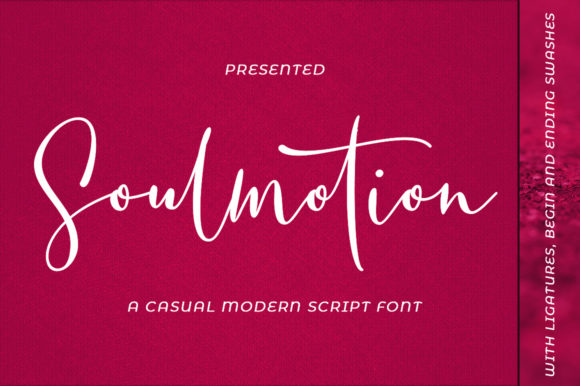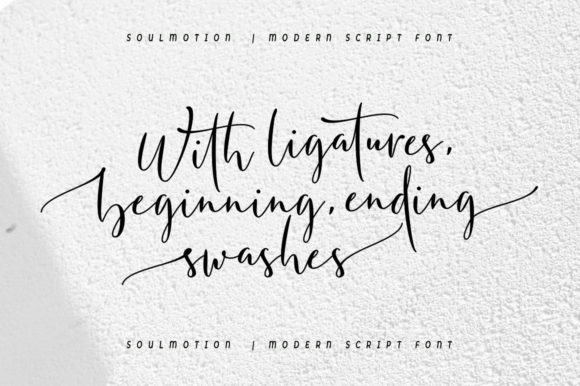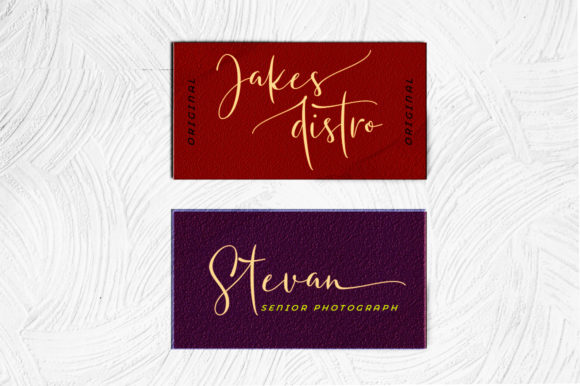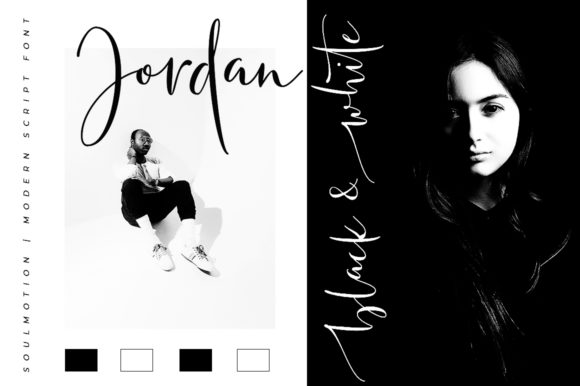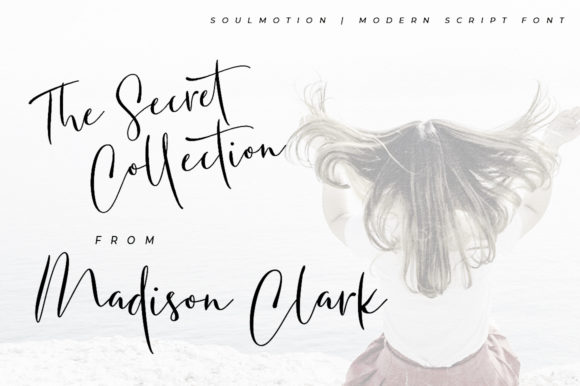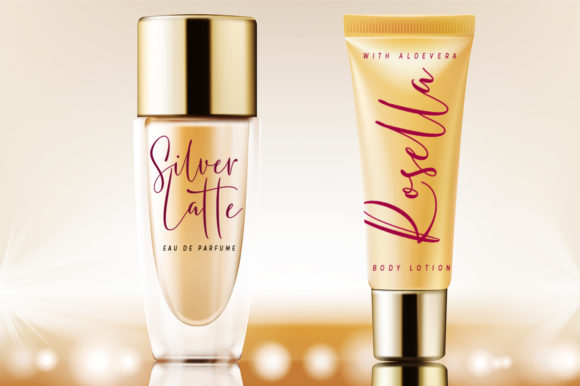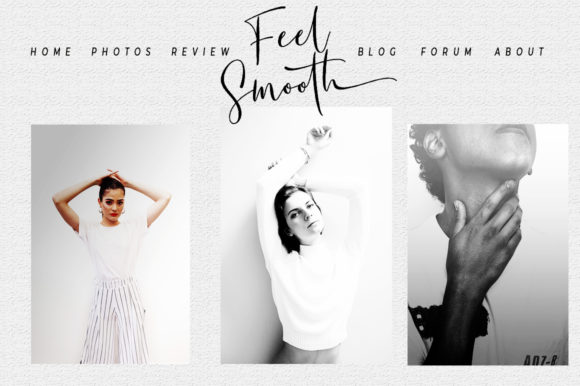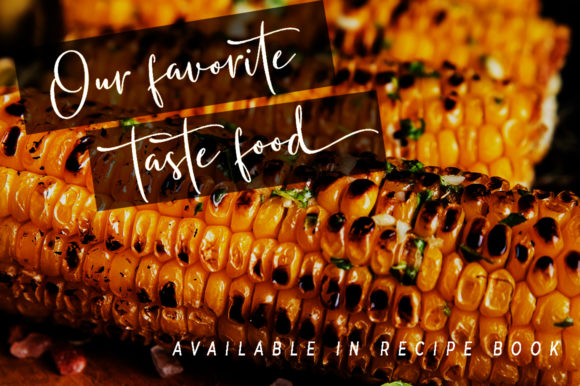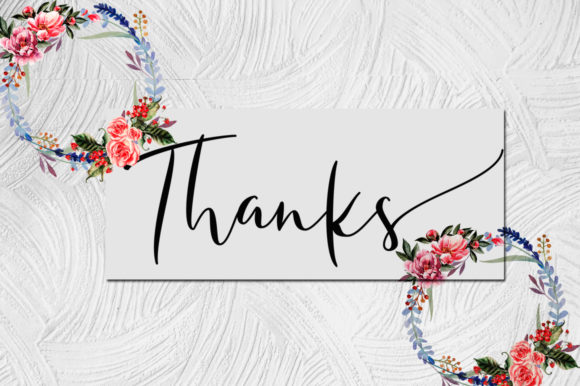
Soulmotion Font
About Soulmotion Font
Soulmotion is a sweet and simple script with stunning swashes. It will turn any design project into a true standout!